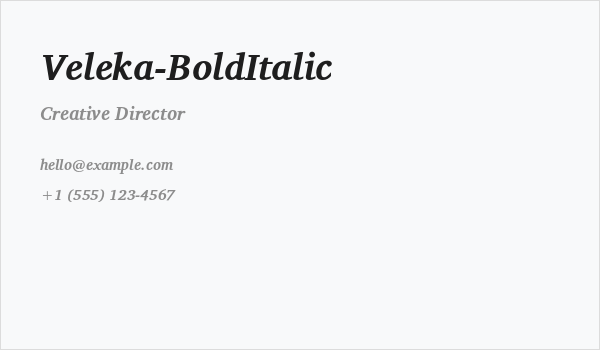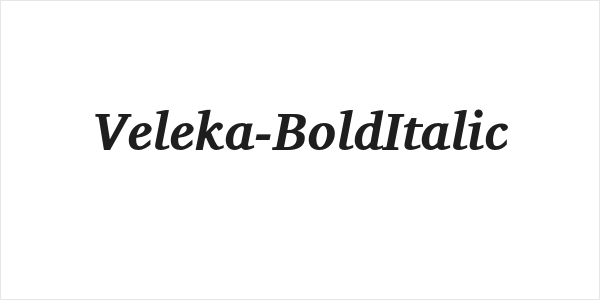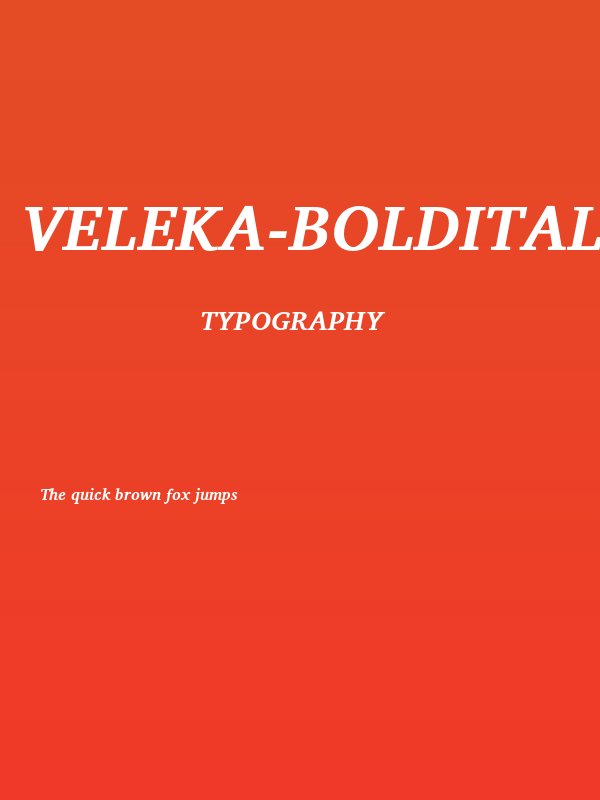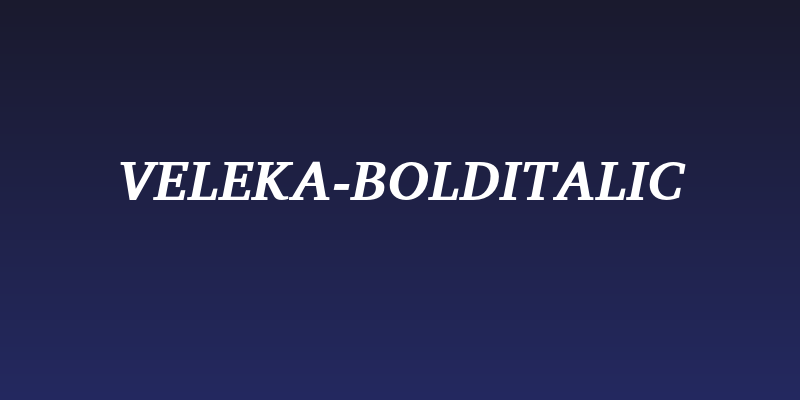
Veleka-BoldItalic Font
Veleka-BoldItalic Description
This font features a bold and italic style, offering a dynamic and elegant appearance. The serifs are pronounced, adding a classic touch to the overall design. The italic slant gives it a sense of movement and sophistication, making it suitable for formal and creative applications. The characters are well-proportioned, with a consistent stroke width that enhances readability. The numerals and special characters maintain the same stylistic elements, ensuring uniformity across different text elements. This font is versatile, capable of conveying both authority and creativity, making it ideal for a variety of design projects.
| Use Case | Headlines, Logos, Editorial design |
| Proposed Projects | Ideal for book covers, formal invitations, branding, and editorial design. |